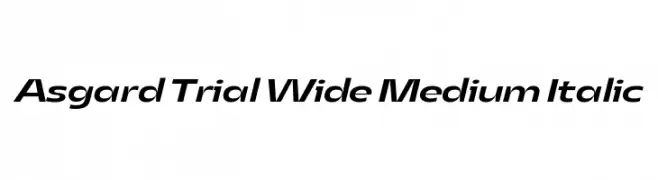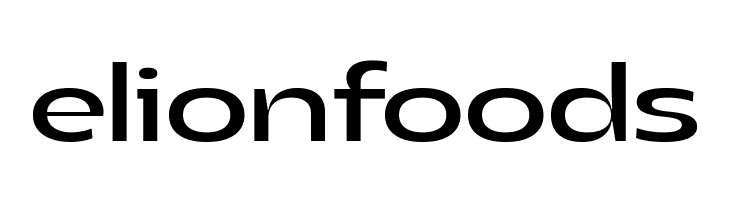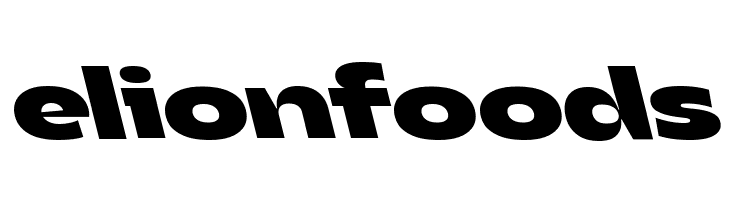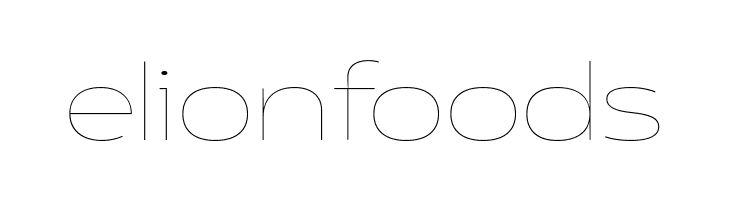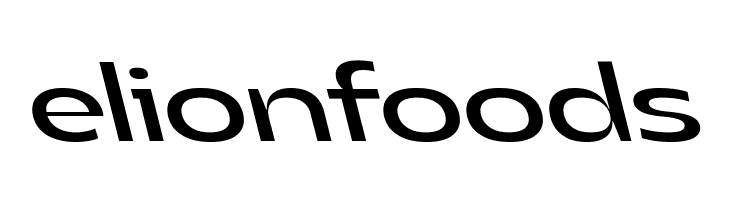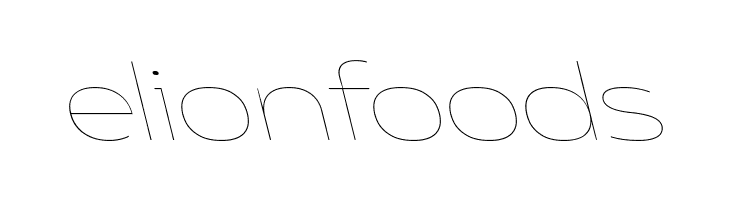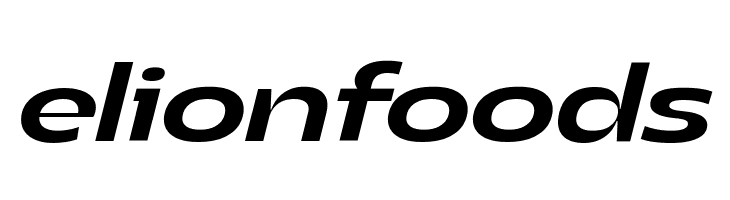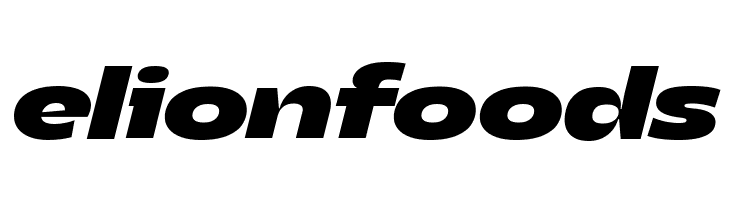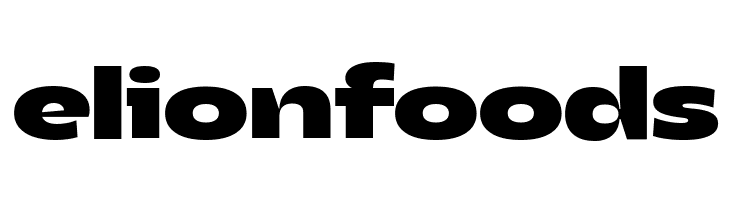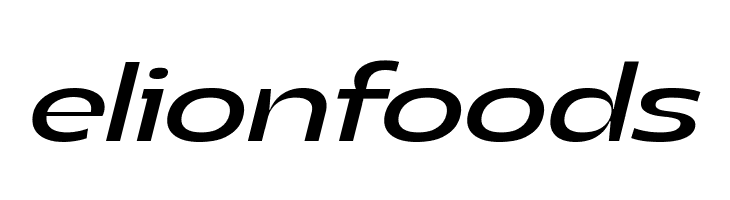
A modern, wide, medium-weight italic font with a sleek design.
A modern, wide, and geometric font with clean lines and minimal contrast.
A modern, backslant font with wide, evenly spaced characters.
A modern, wide, and italic typeface with a sleek and dynamic appearance.
A modern, thin, and wide font with elegant, elongated letterforms.
A modern, thin, backslant font with a sleek, geometric design.
A modern, thin, italic font with wide spacing and elegant design.
A bold, wide font with a modern, geometric style.
A bold, wide, backslanted font with a modern and dynamic style.
A bold, wide, and italic font with a modern, dynamic style.